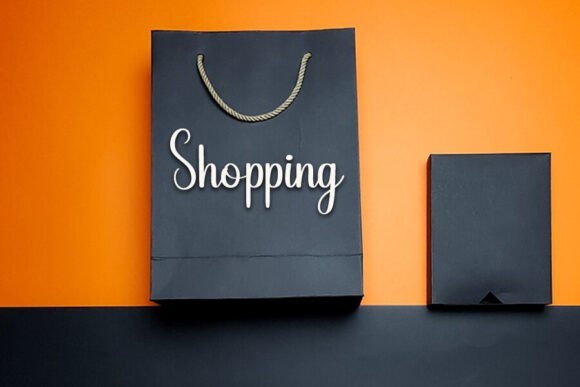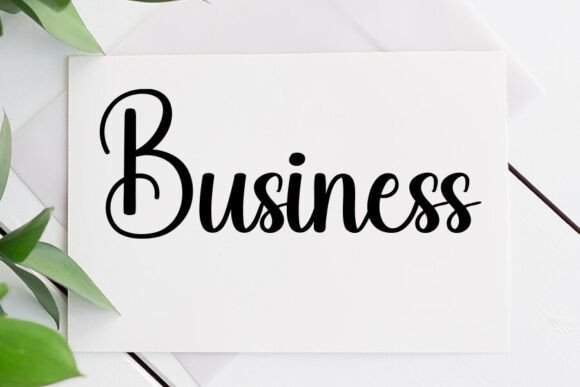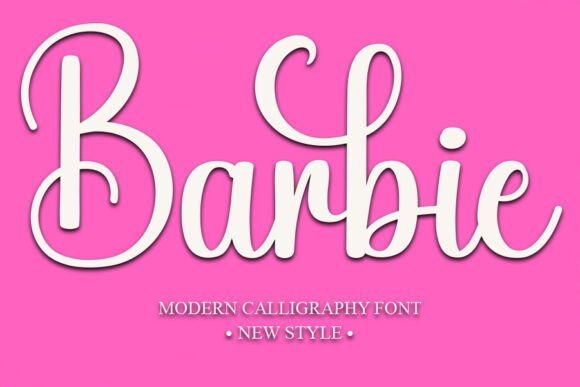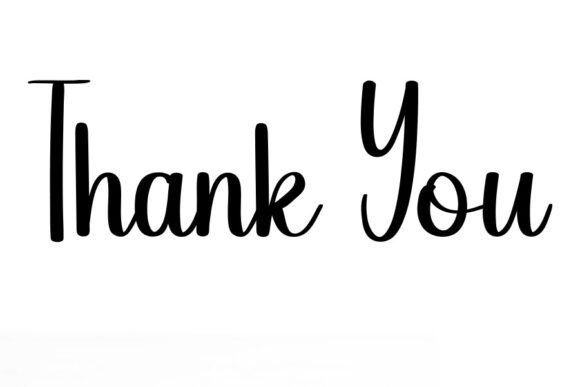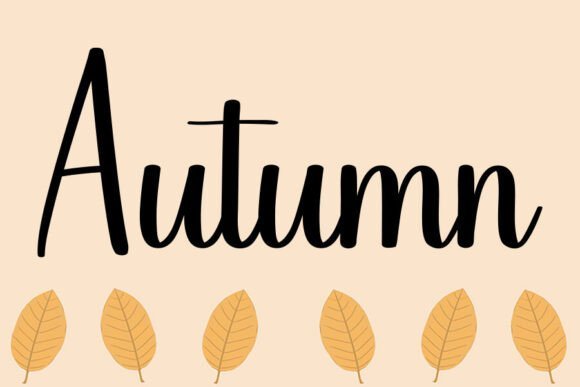
Barbie is a gentle handwritten script font that brings a joyful and romantic touch to any project, perfectly blending fancy elegance with casual charm. Read more
Barbie Font is a sweet, cursive handwritten typeface designed to elevate your creative visions. Its delicate strokes and playful curves make it ideal for a wide variety of uses, from branding and logos to wedding invitations and greeting cards. Whether for fashion lookbooks, marketing promotions, or anything where style and elegance are needed, Barbie Font adds a unique, cheerful aesthetic. Enjoy refined yet accessible typography to make your designs truly stand out.
Sweet, cursive handwritten style
Romantic and joyful vibes
Gorgeous on branding, logos, wedding designs, and greeting cards
Perfect for fashion, lookbooks, and promotions
Combines elegance with casual ease for versatile usability.